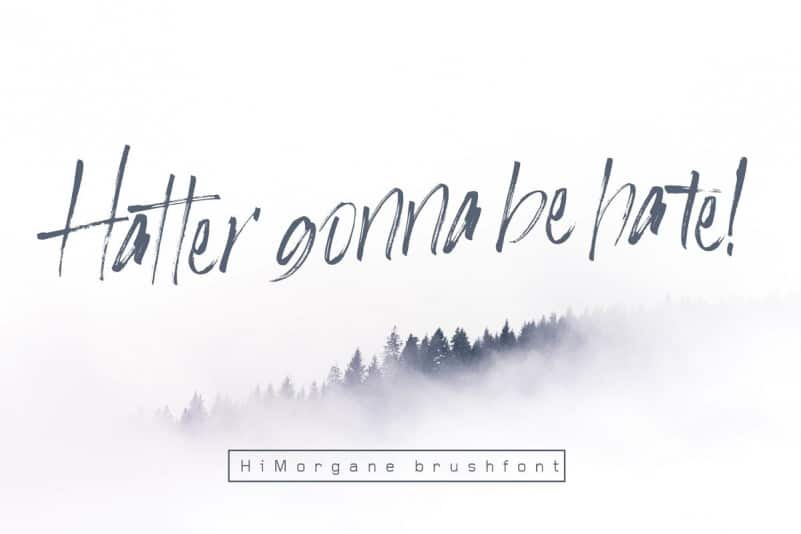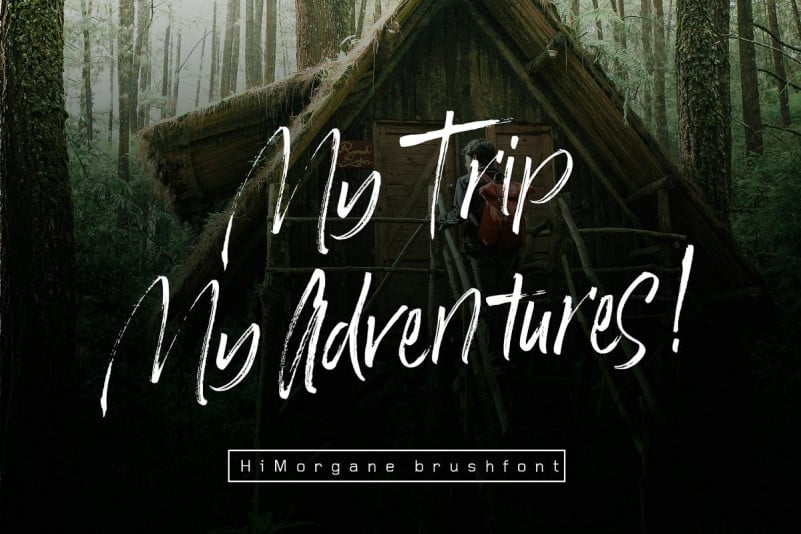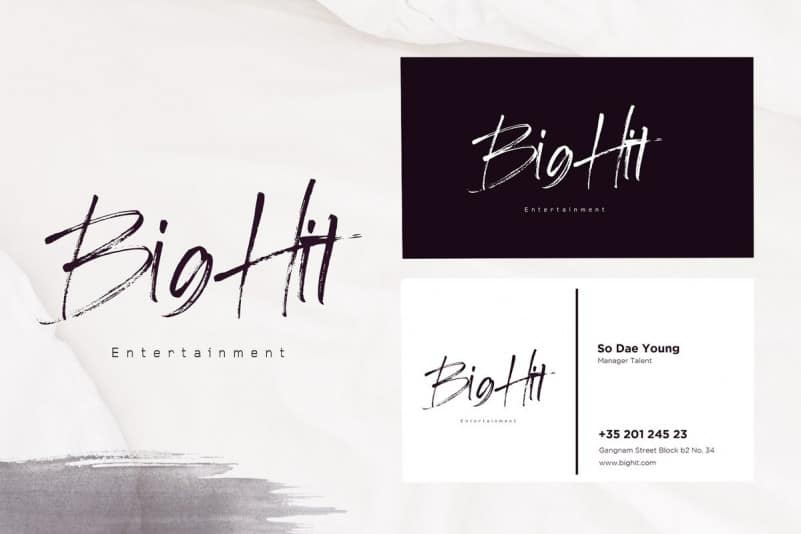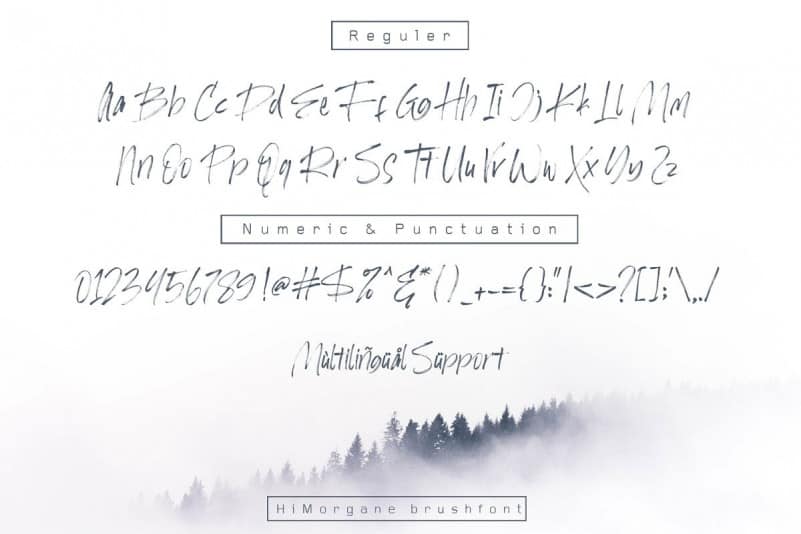
Hi Morgane Brush Font
Introducing Hi Morgane Brush Font. It’s handbrush font. Combines attractive curves with a fresh urban edge delivering a stylish script which is guaranteed to add an eye-catching appeal to your designs. It is design and shared by sabrcreative. Hi Morgane Brush Font is a Hand Brush font with natural and strong characters created using brushes and paint that produces the perfect texture. It’s can be used for various types of design needs such as branding materials, t-shirts, social media templates, business cards, logos, promotional leaflets, posters, and more.